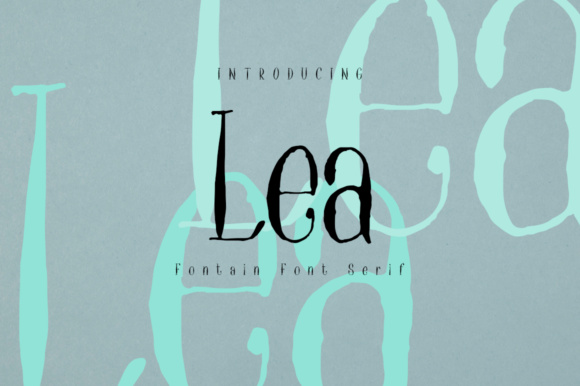
Unleash the allure of tradition with a touch of playfulness in Lea Font, the exquisite brainchild of mcjer.studio. This serif font family is not just a font; it's an invitation to elevate your designs with timeless elegance and a dash of lighthearted charm.
Lea's meticulously crafted characters exude a sense of familiarity and comfort, reminiscent of well-worn books and treasured heirlooms. Its delicate curves and subtle flourishes add a touch of sophistication, while its sturdy serifs provide a solid foundation for impactful headlines and captivating text.
This versatile font family is like a chameleon, effortlessly adapting to a wide range of design projects. Whether you're crafting elegant logos, designing eye-catching posters, or creating captivating website layouts, Lea Font will effortlessly enhance your creations. Its classic beauty transcends time and trends, ensuring your designs remain timeless and engaging.
Embrace the endless possibilities of Lea Font and transform your creative vision into a reality. Experience the joy of crafting designs that resonate with your audience, designs that evoke emotion and leave a lasting impression. As the saying goes, "A beautiful font is like a well-chosen outfit; it enhances your message and makes it shine." With Lea Font as your style companion, your designs will command attention and captivate hearts.